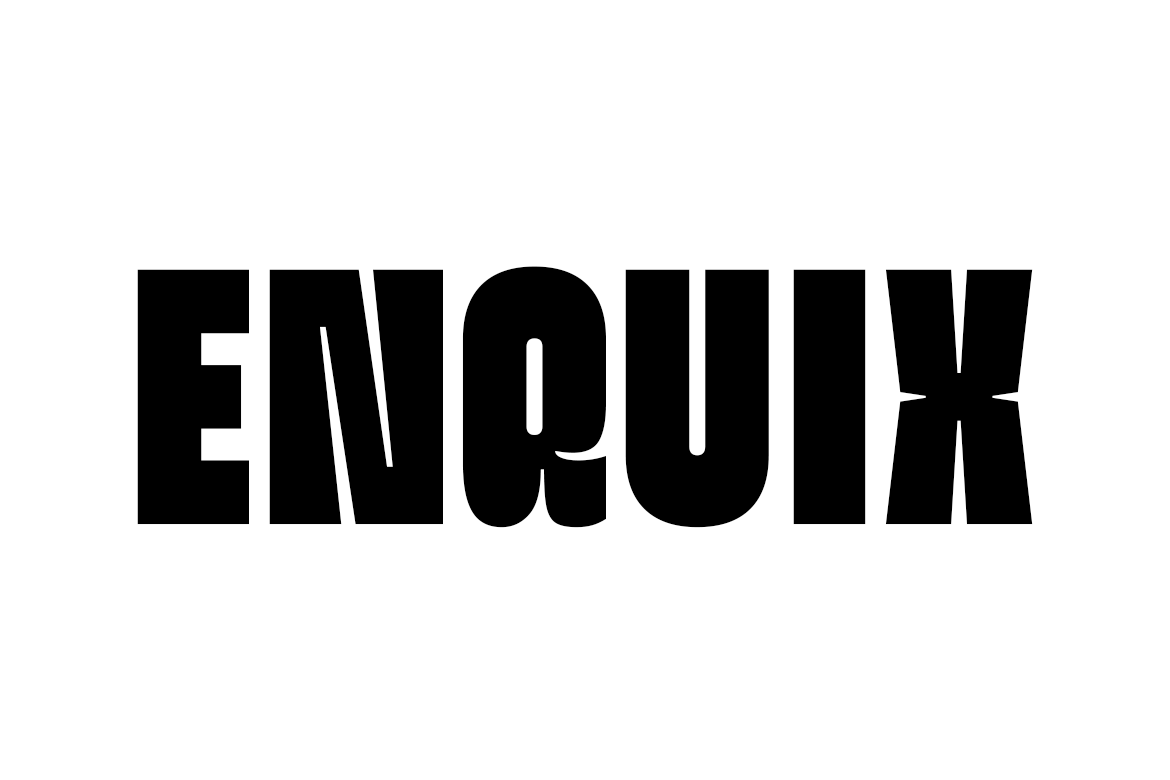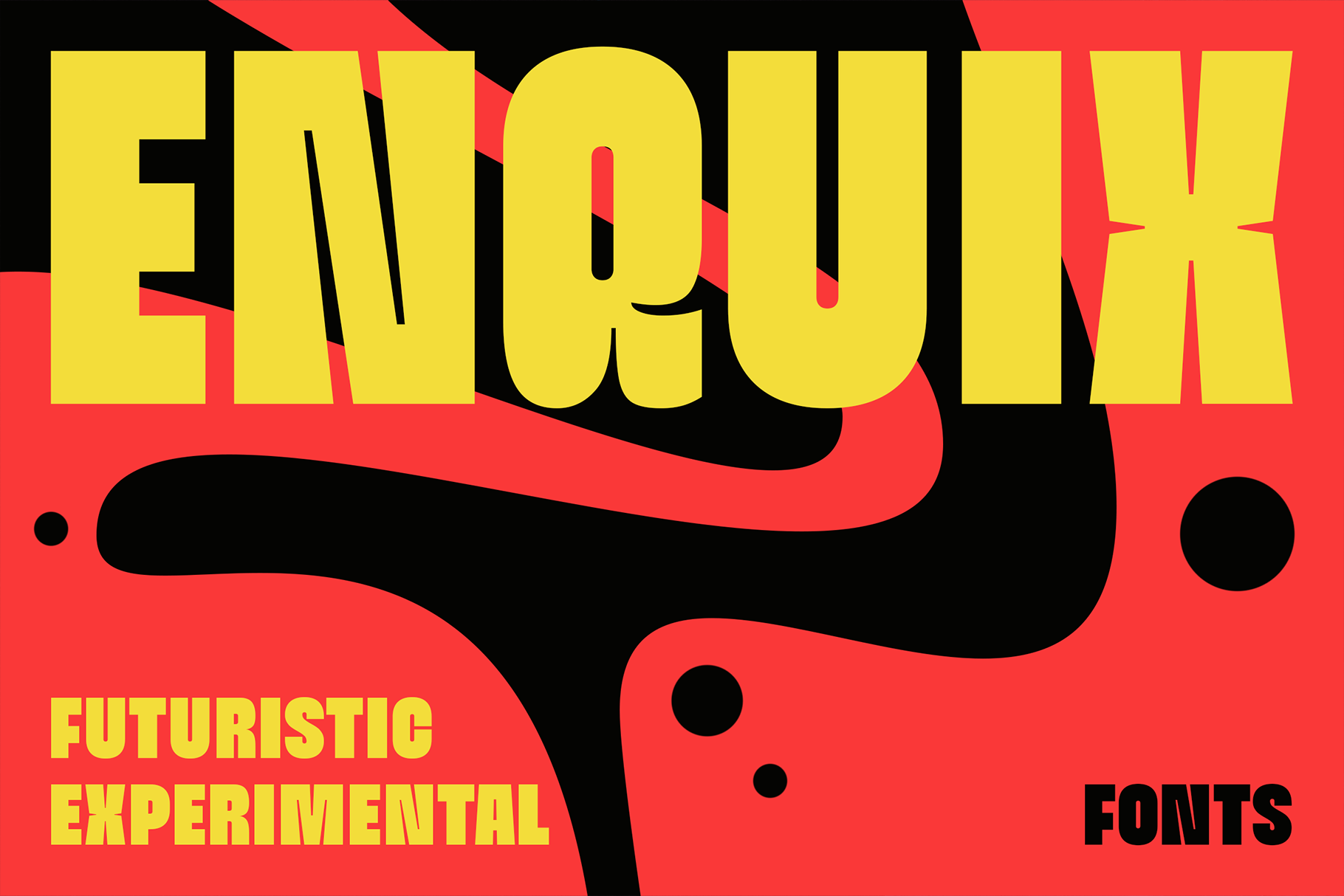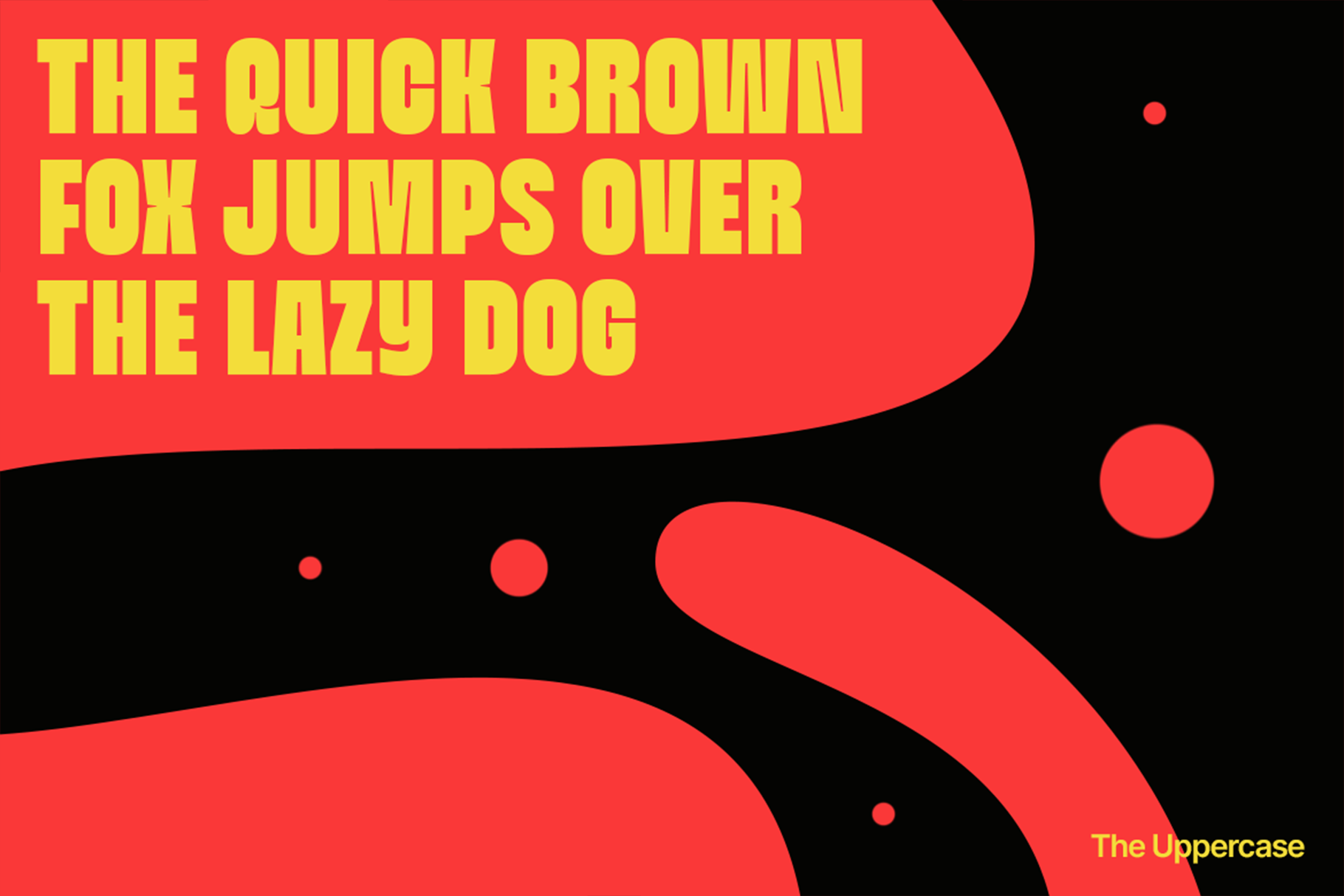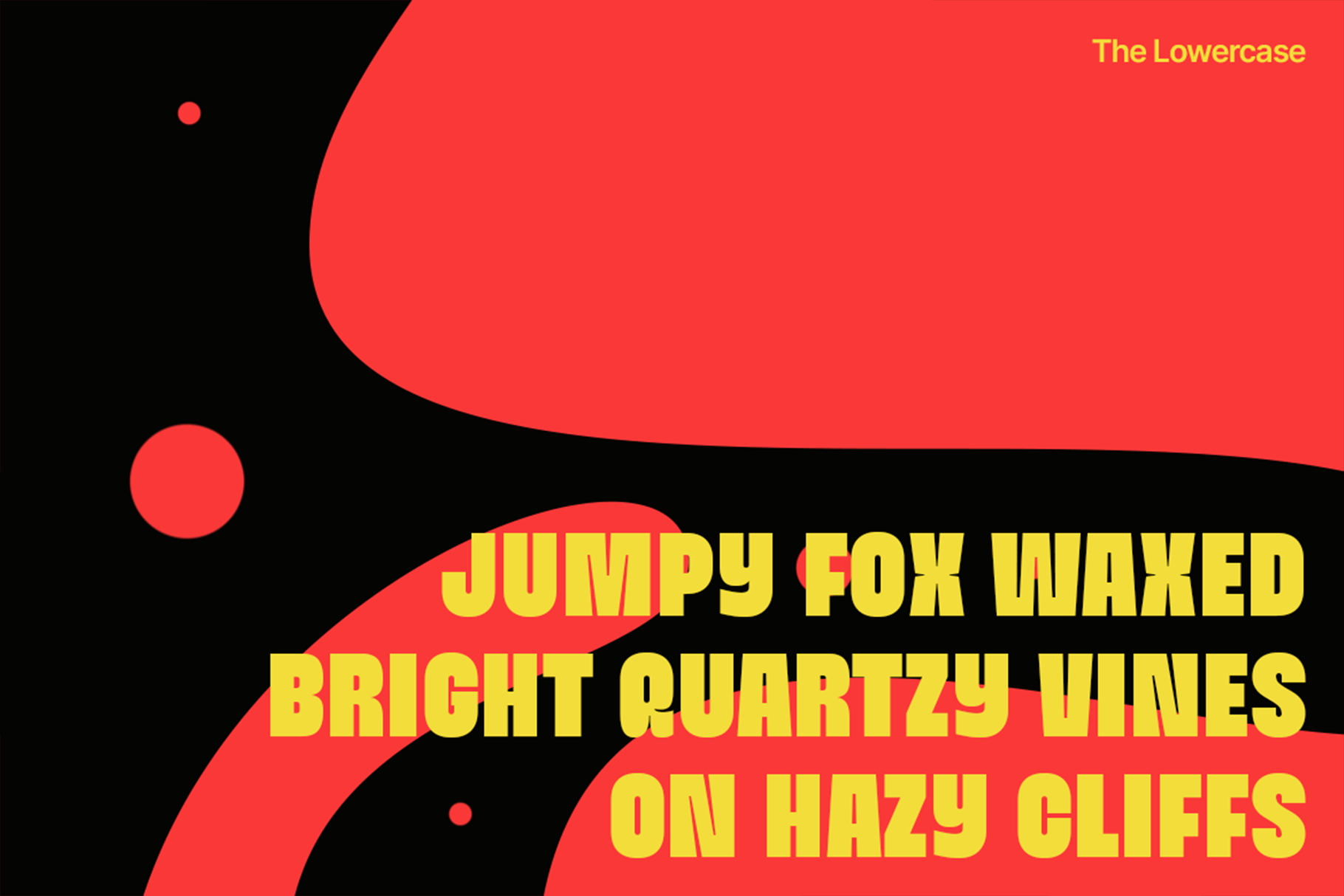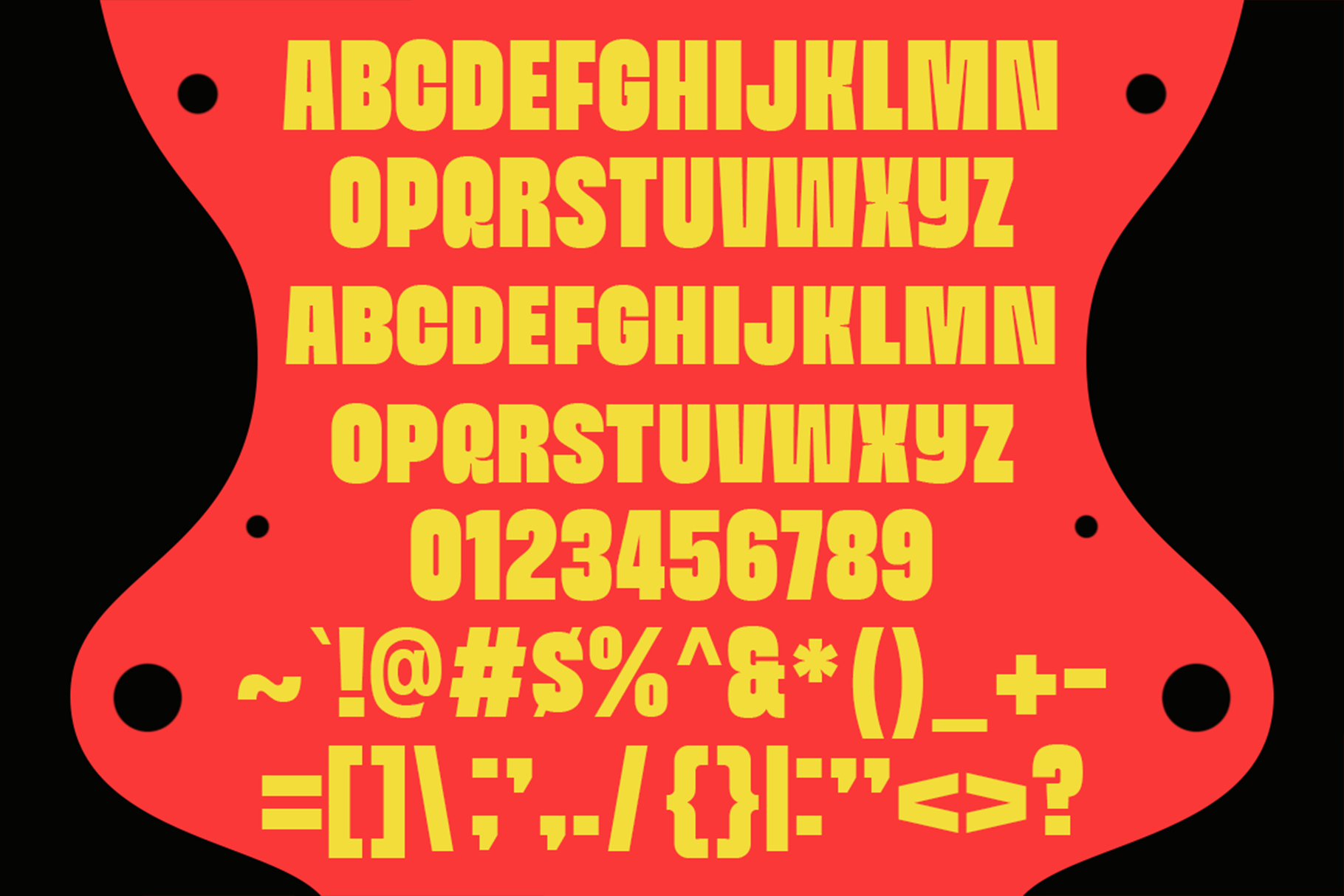
Enquix – Experimental Futuristic Fonts
Meet Enquix, a font that doesn’t whisper. It roars.
Born from the DNA of brutalist poster design, Enquix is an experimental futuristic font that dares to be loud, unapologetically bold, and unapologetically square. Every letter punches through the silence with its boxy mass and sharp attitude, making your message impossible to ignore.
This is not a font for the background—it’s for the headlines, the rebels, the brands that refuse to blend in. Whether you’re designing for the future, or dragging it into the now, Enquix delivers the visual voltage your work demands.
Industrial. Graphic. Disruptive.
Perfect for:
- Posters that scream, not speak
- Game titles, music drops, tech brands
- Anyone bored with “safe” design
Ready to be loud? Then don’t just type— Make. A. Statement.